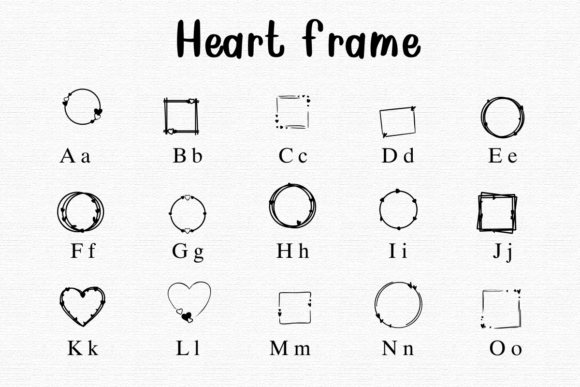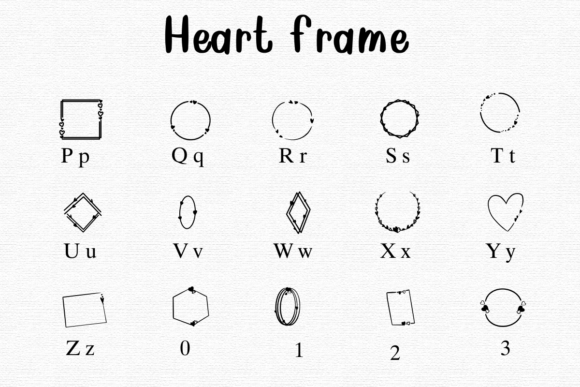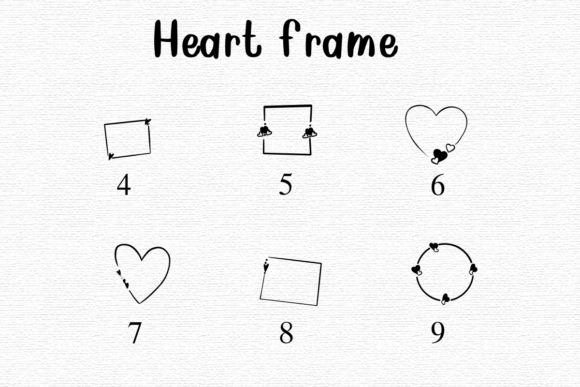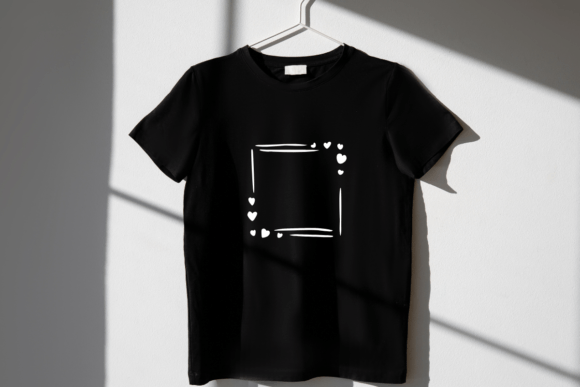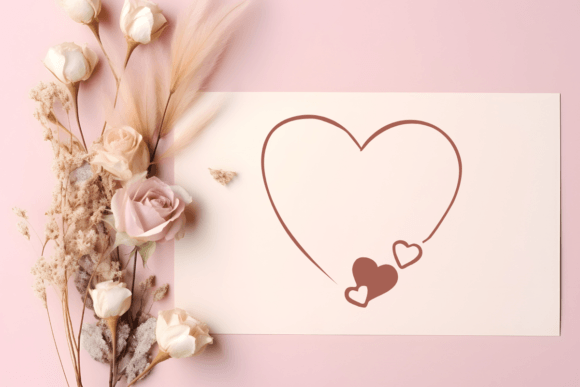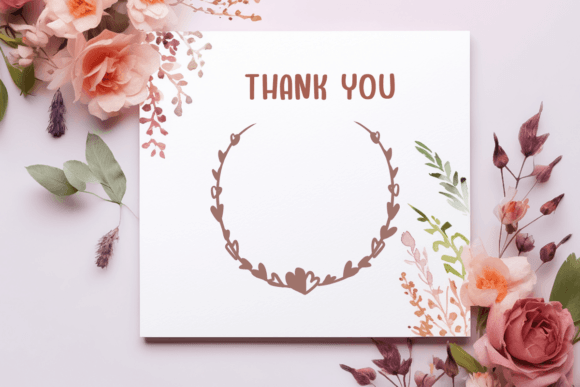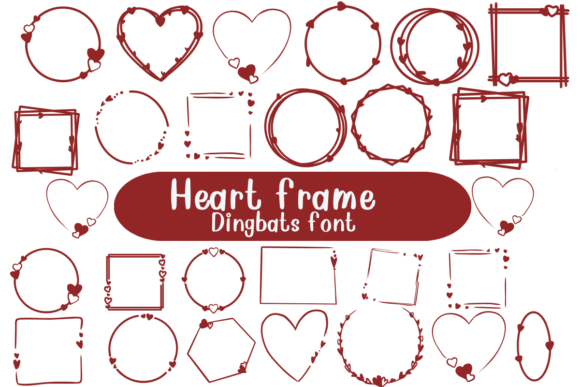
Introducing Heart Frame Font: Add a Touch of Love to Your Designs
Are you looking for a unique and creative way to express yourself in your designs, cards, or crafts? Look no further than the Heart Frame Font! This fun and decorative font is made up of heart-shaped designs, replacing regular letters and symbols with intricate and beautiful heart frames. In this article, we’ll explore the world of Heart Frame Font, its uses, and how you can incorporate it into your creative projects.
What is Heart Frame Font?
Heart Frame Font is a specialty font designed to add a touch of love and whimsy to your designs. Unlike traditional fonts, each character in Heart Frame Font is a unique heart-shaped frame, carefully crafted to bring a smile to your face. From elegant and delicate to bold and playful, Heart Frame Font offers a range of styles to suit any creative project.
Uses of Heart Frame Font
So, how can you use Heart Frame Font in your designs? The possibilities are endless! Here are a few ideas to get you started:
- Valentine’s Day Cards and Gifts: Add a romantic touch to your Valentine’s Day cards, gift tags, and wrapping paper with Heart Frame Font.
- Wedding Invitations and Decor: Use Heart Frame Font to create beautiful and unique wedding invitations, place cards, and decorative elements.
- Crafting and Scrapbooking: Add a personal touch to your scrapbooking and crafting projects with Heart Frame Font, perfect for journaling, titles, and embellishments.
- Social Media Graphics: Use Heart Frame Font to create eye-catching social media graphics, perfect for sharing love-themed messages, quotes, and inspiration.
Benefits of Using Heart Frame Font
So, why choose Heart Frame Font for your designs? Here are just a few benefits:
- Unique and Creative: Heart Frame Font offers a fresh and unique way to express yourself in your designs, setting you apart from the crowd.
- Customizable: Experiment with different font sizes, colors, and styles to make Heart Frame Font your own.
- Emotional Connection: Heart Frame Font adds a touch of love and warmth to your designs, creating an emotional connection with your audience.
Tips for Using Heart Frame Font
To get the most out of Heart Frame Font, here are a few tips to keep in mind:
- Mix and Match: Combine Heart Frame Font with other fonts and design elements to create a unique and visually appealing design.
- Experiment with Colors: Try out different colors and gradients to add depth and interest to your designs.
- Keep it Simple: Don’t overdo it – use Heart Frame Font sparingly to avoid overwhelming your design.
- Have Fun: Most importantly, have fun and be creative with Heart Frame Font!
In conclusion, Heart Frame Font is a fun and decorative font that’s perfect for designers, crafters, and anyone looking to add a touch of love and creativity to their projects. With its unique heart-shaped designs, ease of use, and customization options, Heart Frame Font is sure to become a favorite in your design toolkit. So why not give it a try and see how you can use Heart Frame Font to bring a smile to your audience’s face?